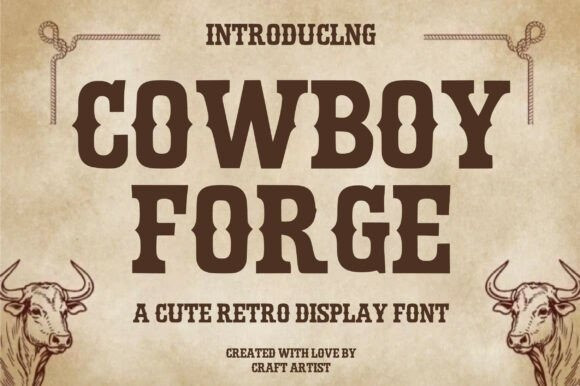
Cowboy Forge Font
Designer: Craft Artist
Cowboy Forge Font is a bold and authentic western display font inspired by classic cowboy posters and ranch lettering.With its strong serifs and rugged vintage style, it’s perfect for logos, badges, headlines, labels, and any design that needs a true Wild West feel.